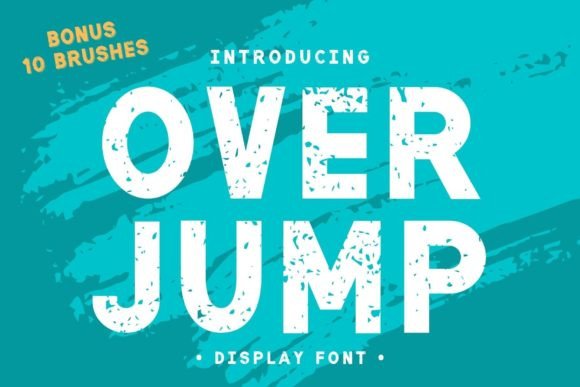
Introducing Over Jump Font, the best font for retro logos! Created by Brown Cupple Typeface, this display font is perfect for adding a touch of playfulness and authenticity to any project.
With its unique college grunge decorative style, Over Jump Font is the perfect choice for bloggers, designers, and marketers looking to elevate their branding game. Use it for logos, branding, ads, invitations, greeting cards, planners, photo albums, decorations, and so much more.
This font family embodies creativity and versatility, and its eye-catching design will surely capture your audience's attention. Its retro feel will take you back to the good old days, adding a touch of nostalgia to your designs.
Add some personality to your work with Over Jump Font. Its stylish curves and edgy lines make it stand out from other fonts, making it the perfect choice for anyone looking for something unique.